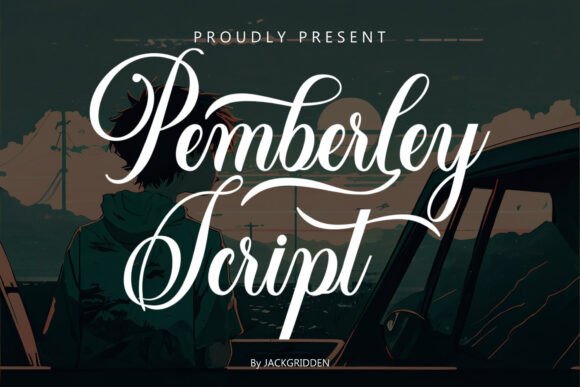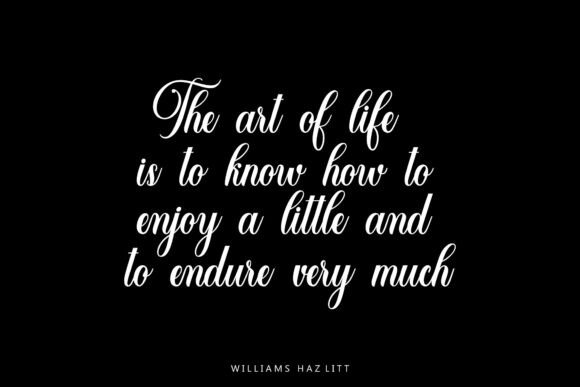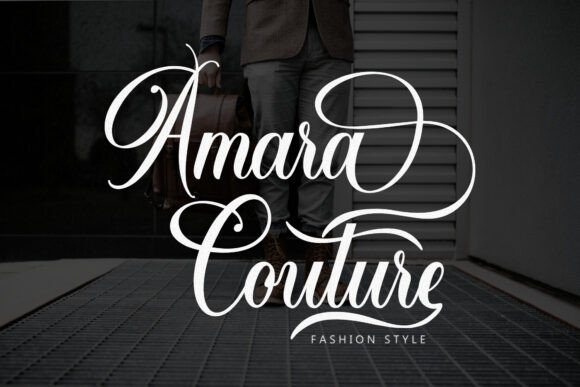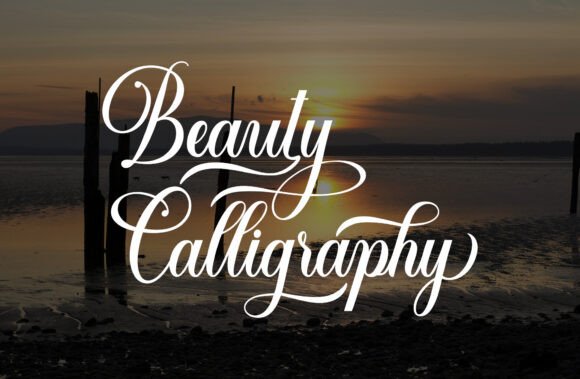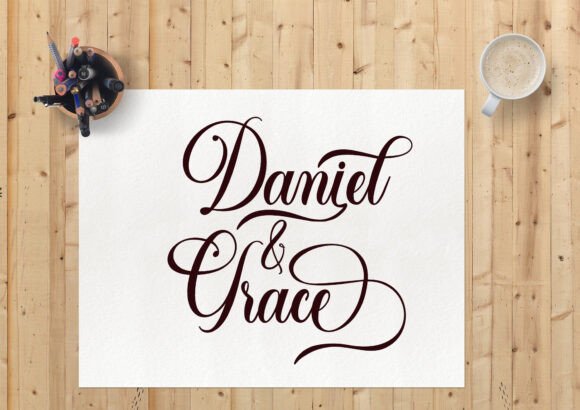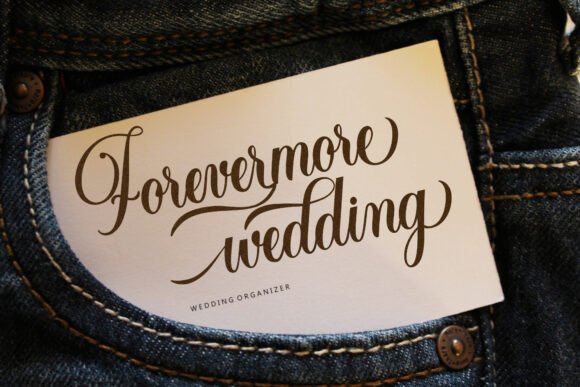
Introduction to Pemberley Font
Pemberley is an elegant, flowing script font that captures the essence of classic sophistication.
With its graceful curves and stylish flourishes, this typeface is perfect for wedding invitations, formal events, and any project that requires a touch of romance Inspired by the timeless beauty of literature and nature, Pemberley Script adds a refined yet whimsical touch to your designs.
Key Features of Pemberley Font